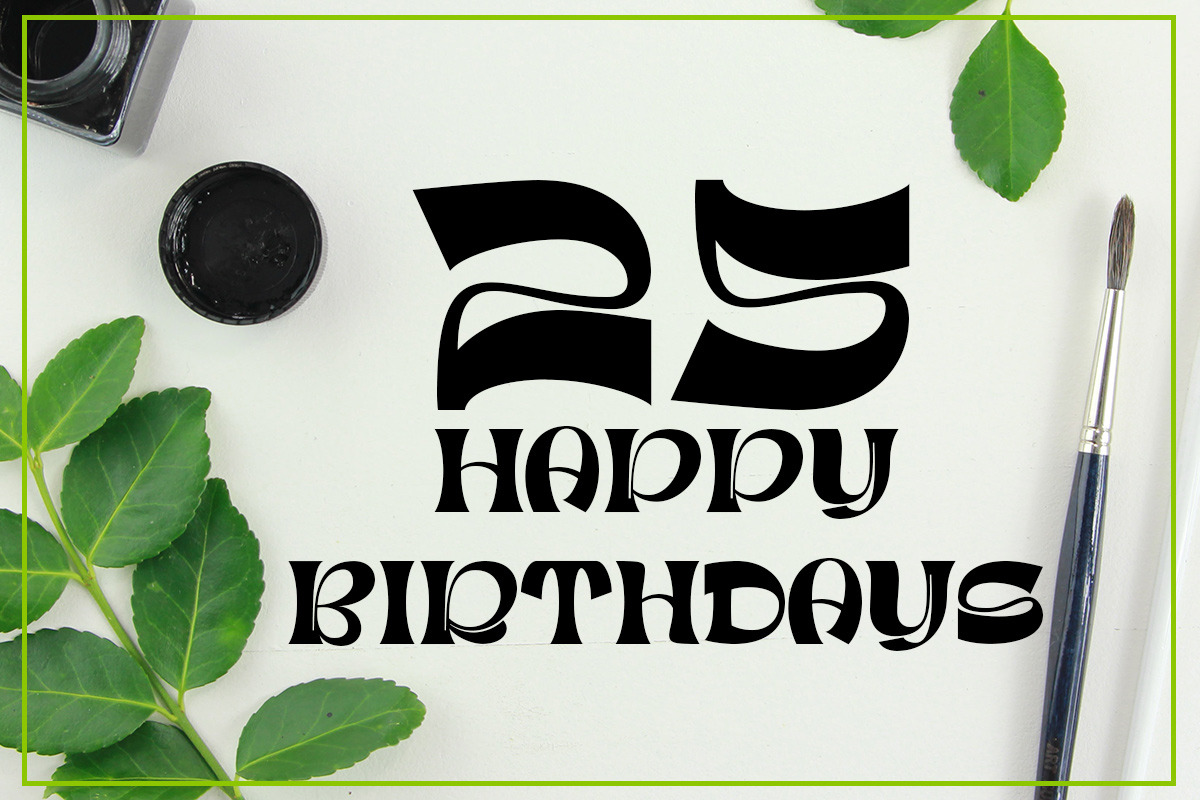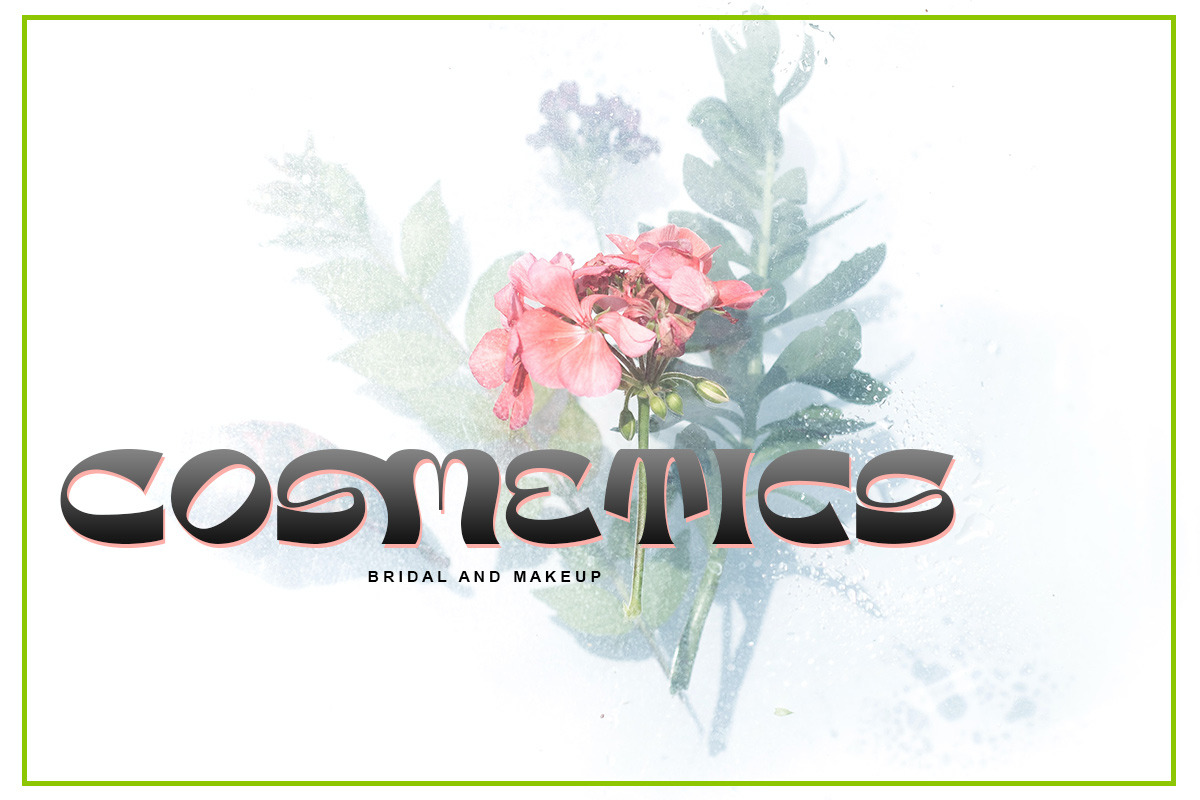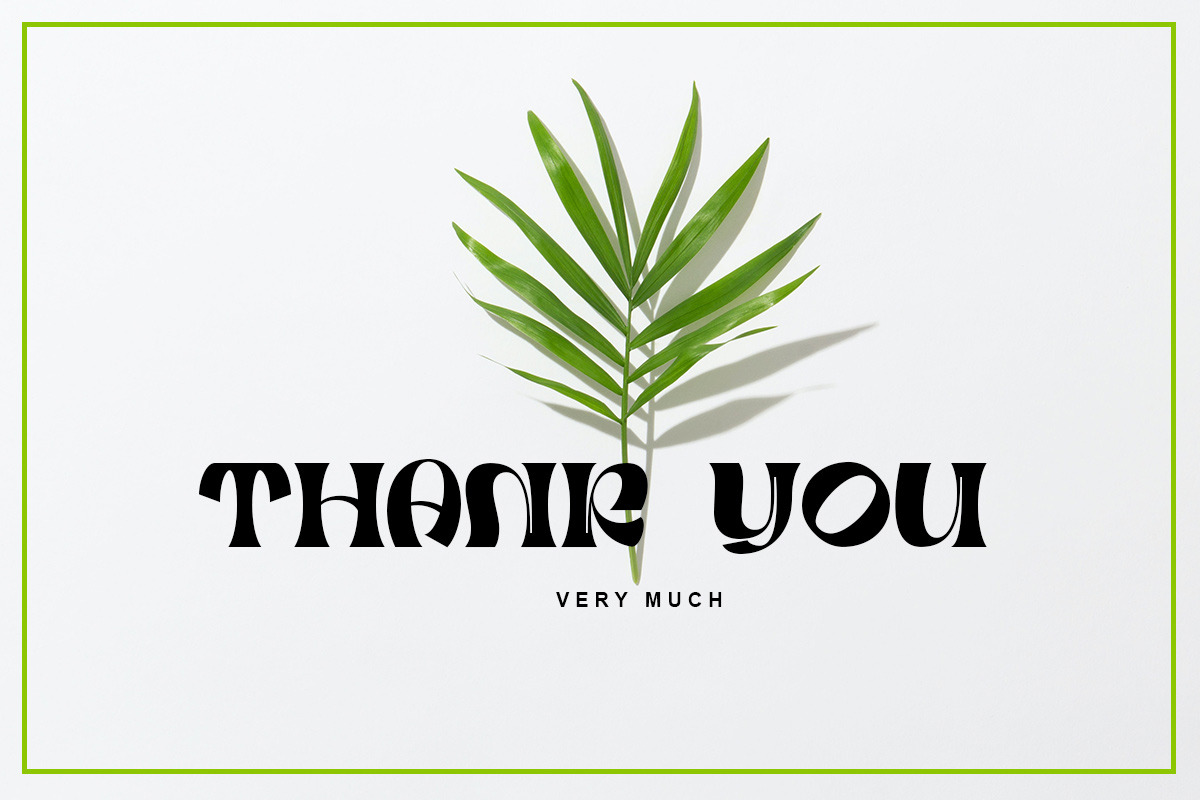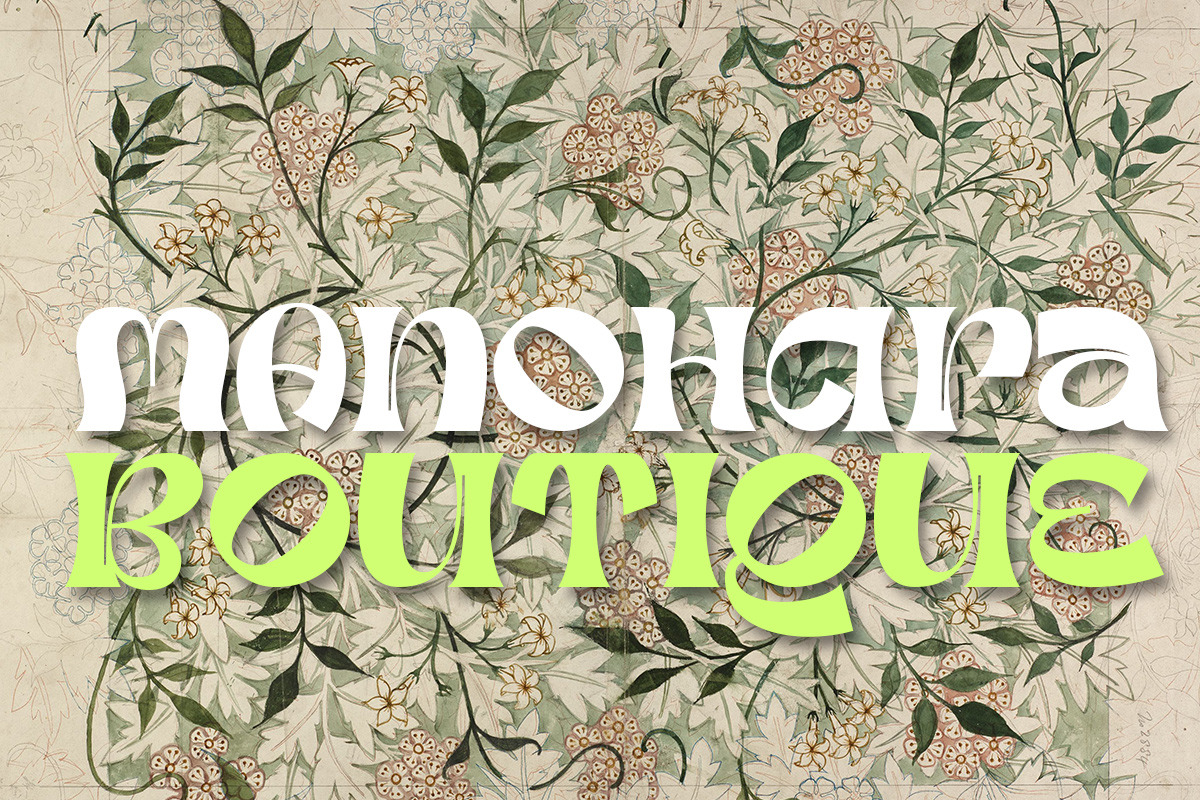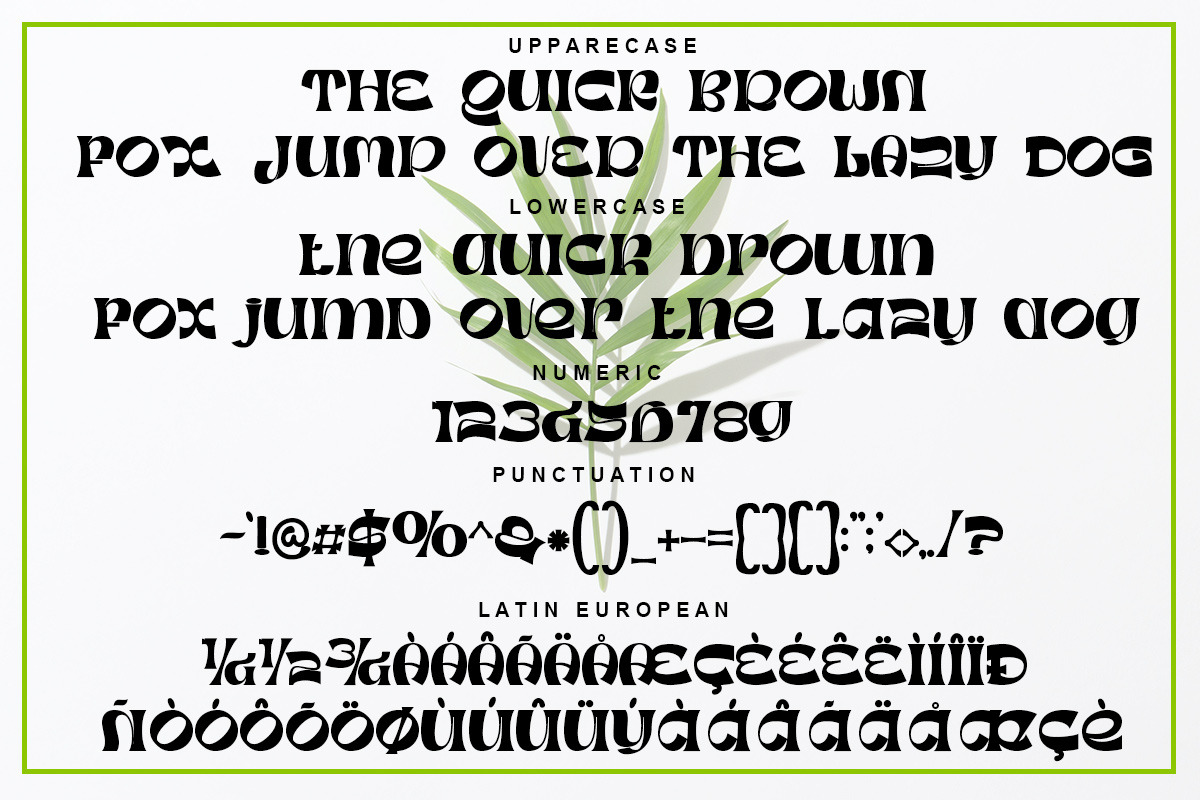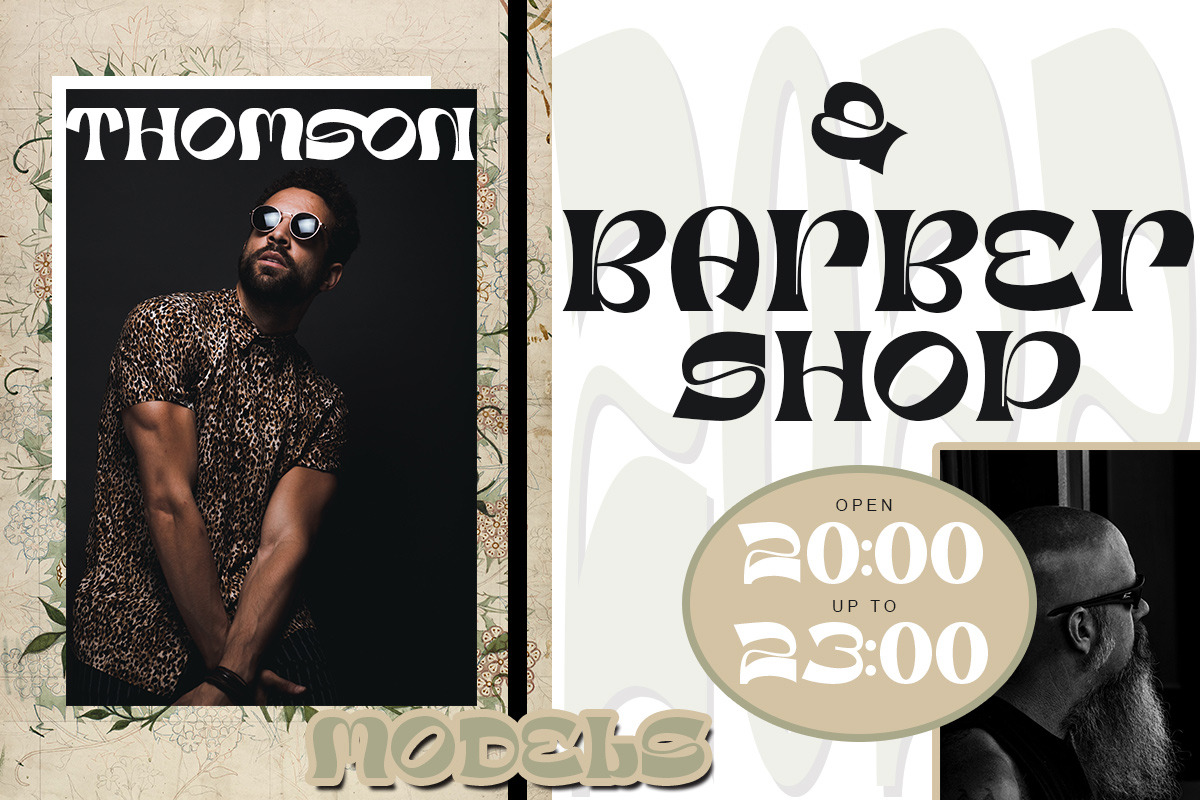
Koska esko
Koska esko This is a font with a very bold and elegant look, perfect for designs with a modern look it's time for you to try a new style for a new design and get a special sensation in your design very suitable for various types of designs books, banners, magazines, YouTube titles, and other social media